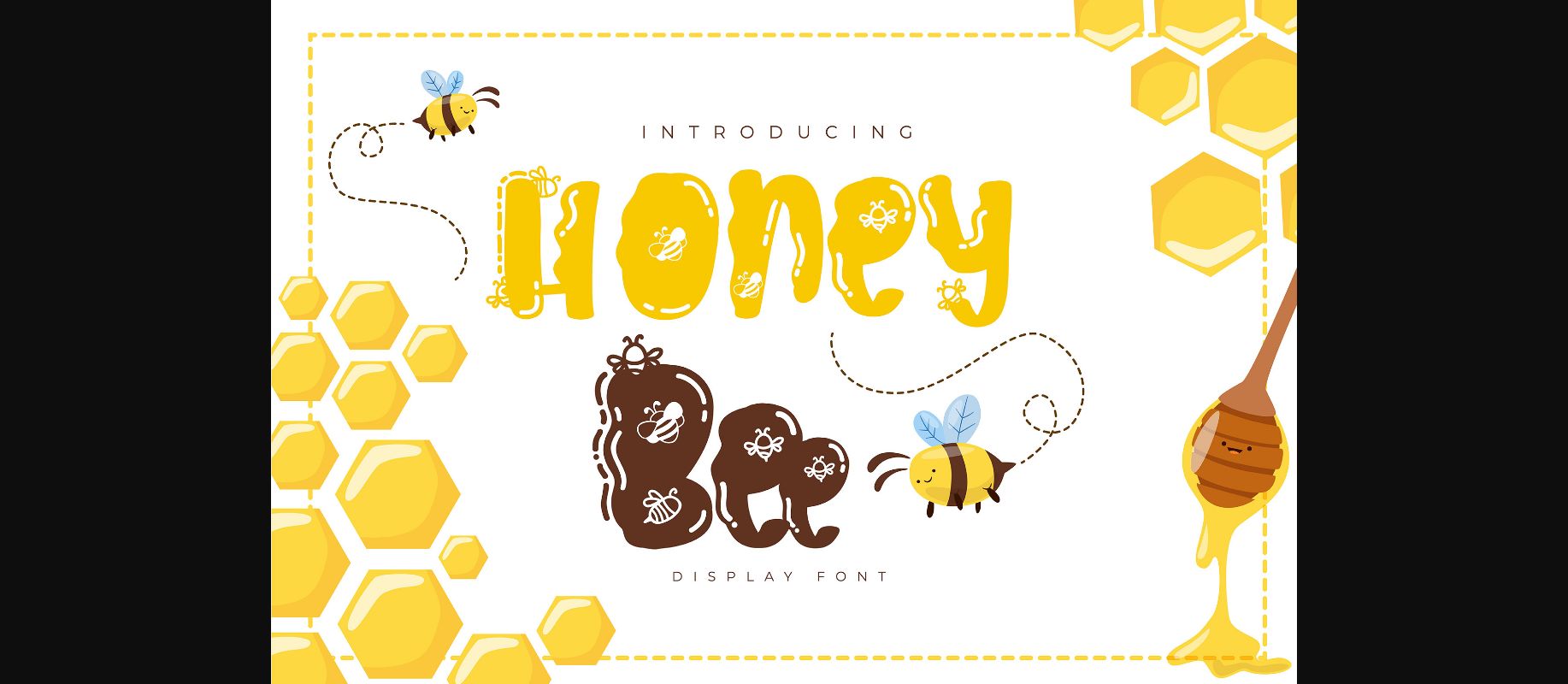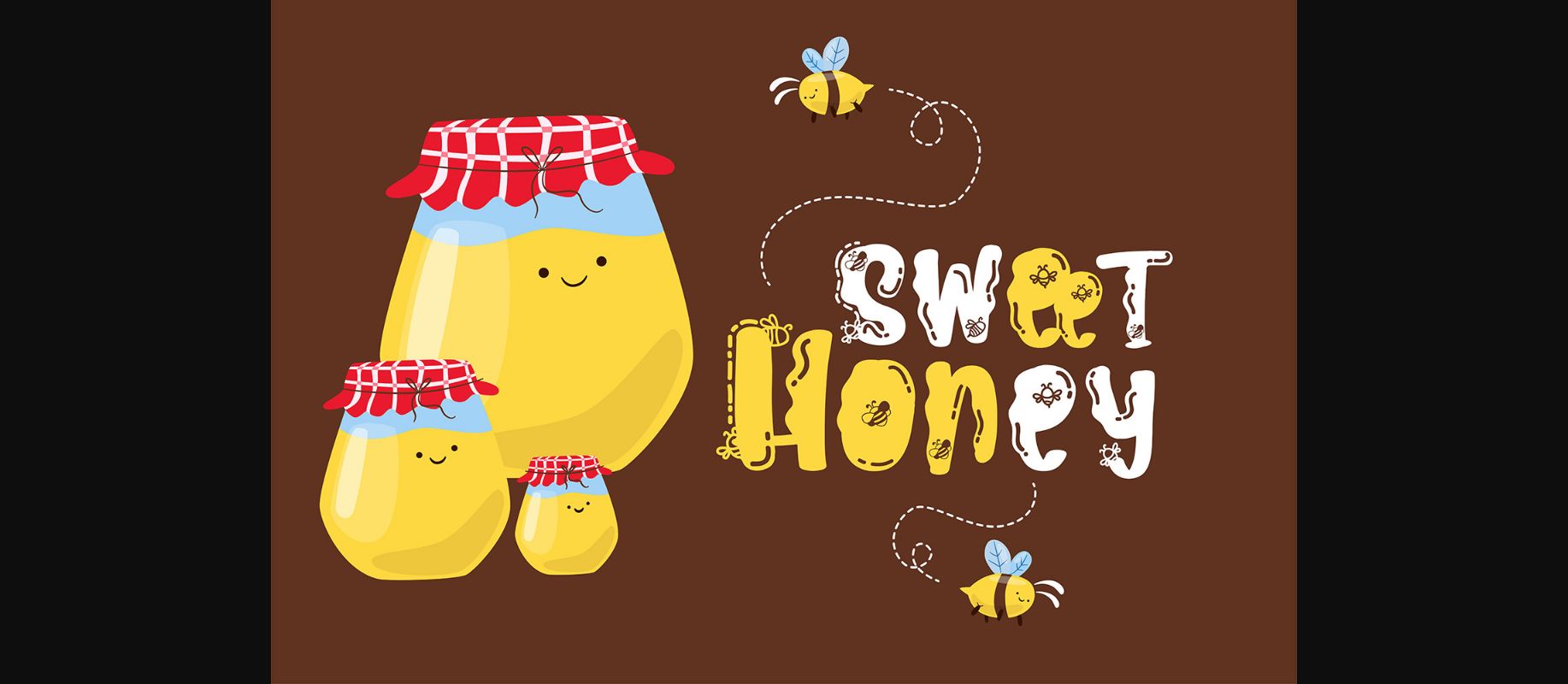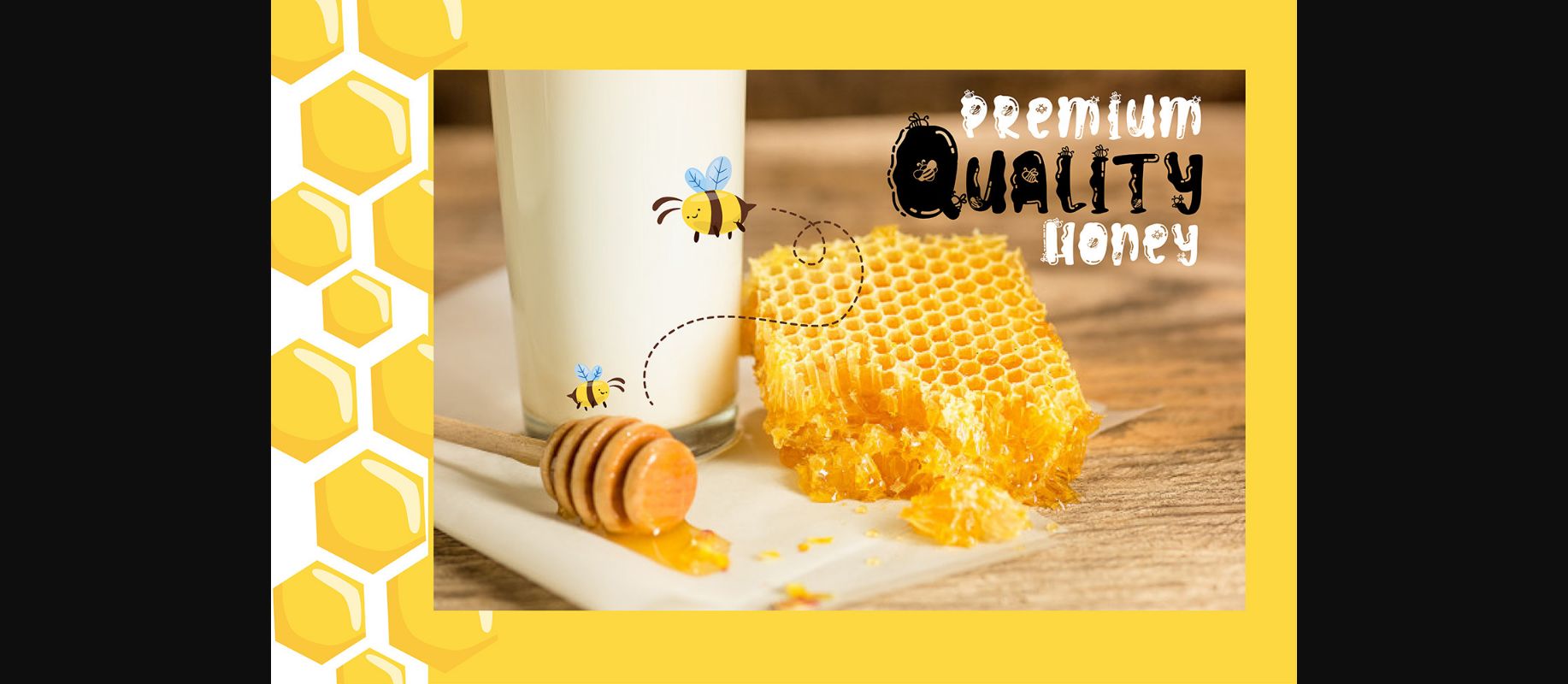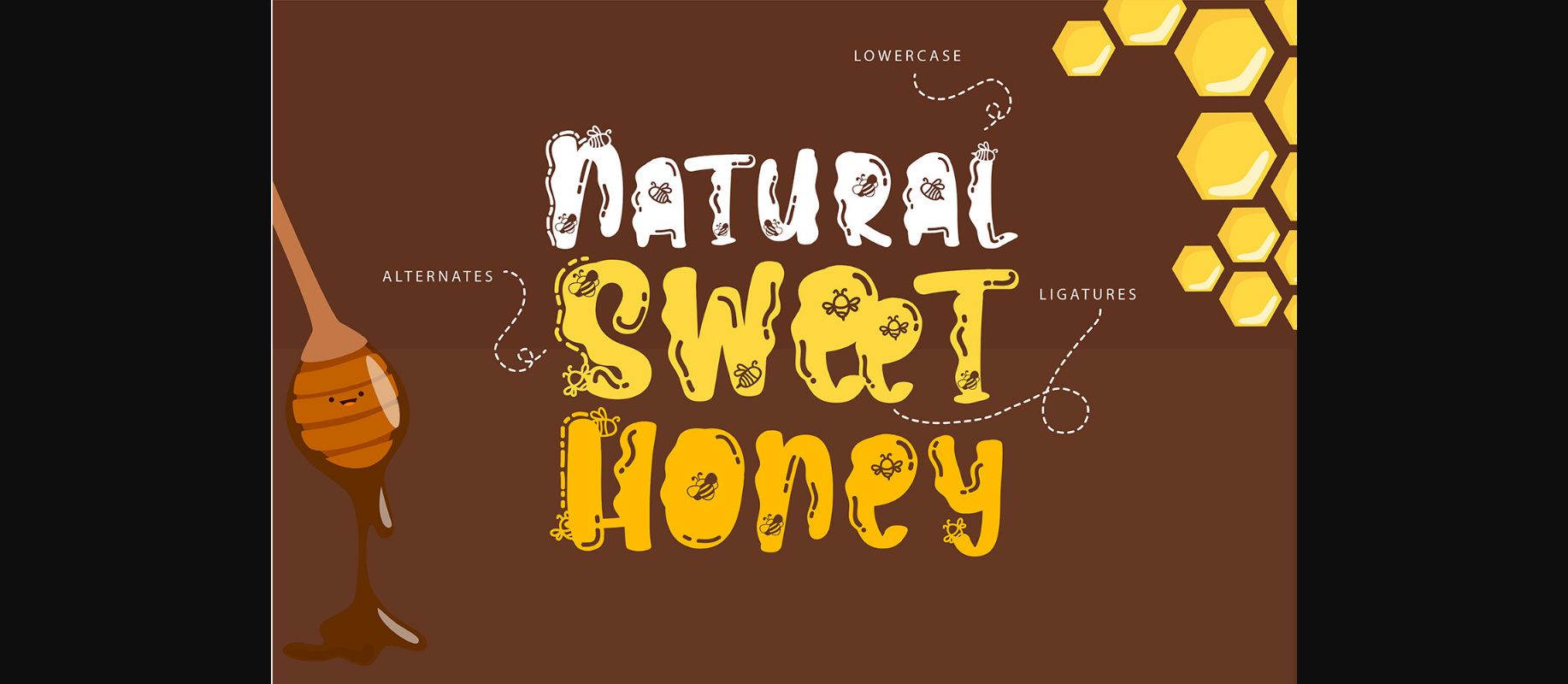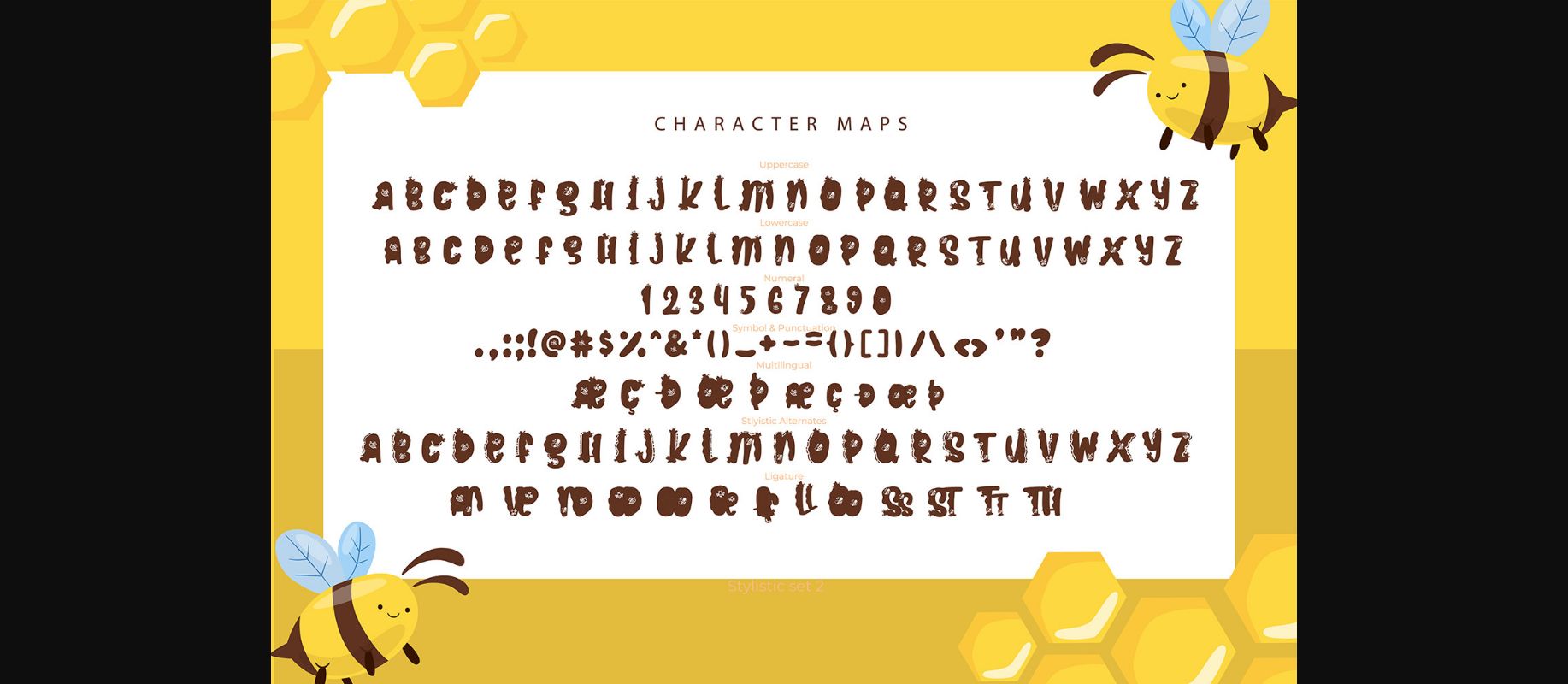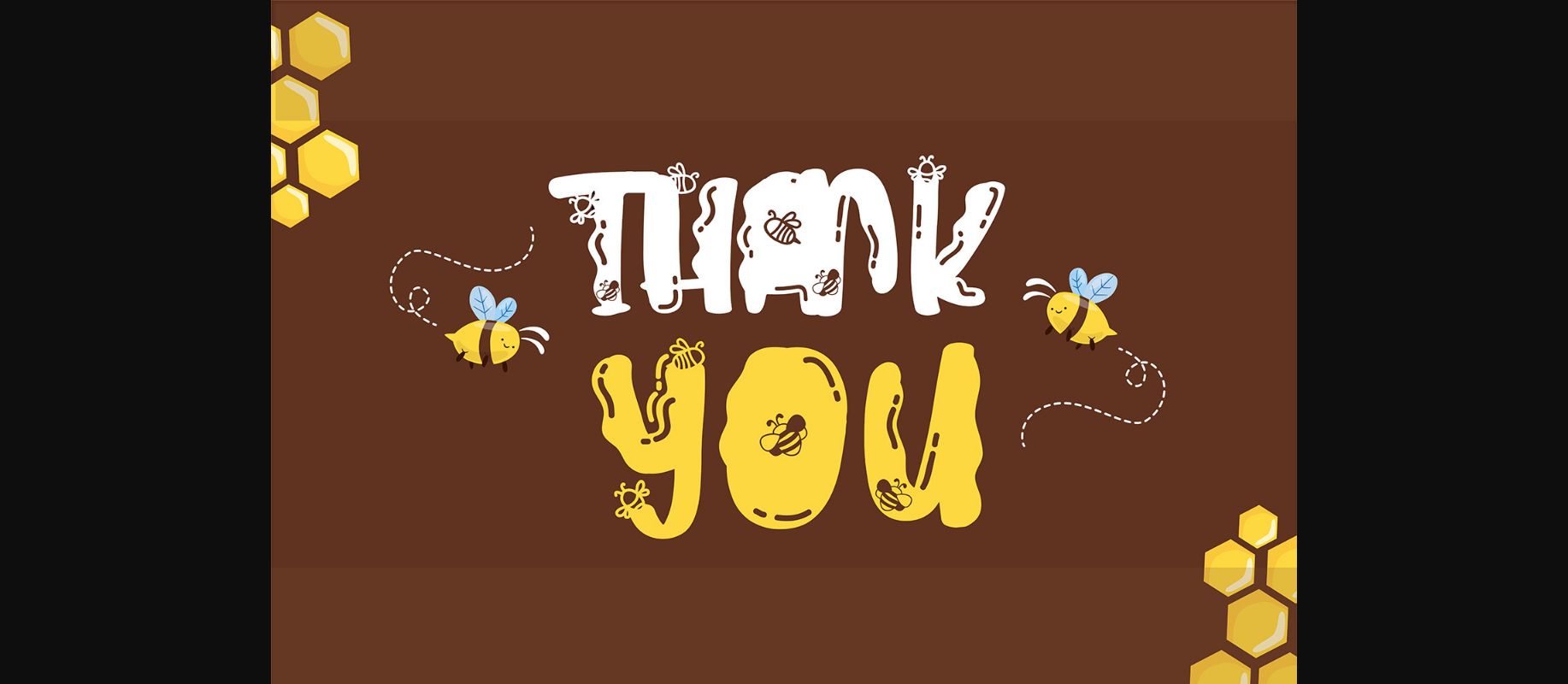
Honeybee is a cool and quirky decorative font. This font is PUA encoded which means you can access all glyphs and swashes with ease! Add this font to your most creative ideas, and notice how it makes them stand out!